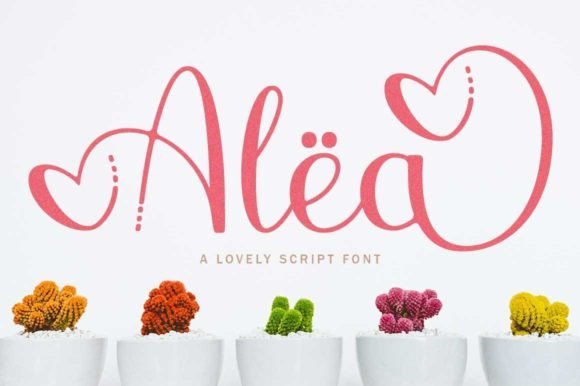
Alea Font: Where Love is Written in the Letters
As a designer, there’s nothing quite like the thrill of bringing a client’s vision to life. You’ve been tasked with creating the perfect wedding invitation – a symbol of love and commitment that will be cherished for years to come. You browse through font options, searching for the perfect combination of elegance and romance. And then, it hits you – Alea Font, with its delicate strokes and heart-shaped tails, is the perfect choice.
Alea Font is more than just a font, it’s a language of love that brings warmth and emotion to every message. Whether you’re creating heartfelt love notes or simply want to infuse your designs with a romantic flair, Alea Font is the perfect tool for the job. For designers, Alea Font offers a valuable resource for creating unique and memorable designs that will leave a lasting impression.
Alea Font Key Features
- Unique Characteristics: Alea Font features a unique blend of modern and classic elements, with intricate details and ornate flourishes that make it stand out from other fonts.
Alea Font Review
As a designer, I had the opportunity to work with the Alea Font, and here’s my honest review.
- Unique Character**: Alea Font has a unique character that makes it stand out from other fonts. Its quirky and playful nature makes it perfect for creative projects.
- High-Quality Rasterization**: The font has high-quality rasterization, which ensures that it looks great in both digital and print formats.
- Wide Character Set**: Alea Font has a wide character set, including a variety of punctuation marks and special characters.
- Difficult to Read in Small Sizes**: While Alea Font is great at larger sizes, it can be difficult to read at smaller sizes due to its unique character.
- Not Suitable for Formal Documents**: Due to its playful nature, Alea Font may not be suitable for formal documents or professional projects.
Alea Font is a great choice for creative projects, such as children’s books, advertising materials, or social media graphics. However, it may not be the best choice for formal documents or projects where a more professional font is required. Overall, I would give Alea Font 4 out of 5 stars.
Getting the Most Out of Alea Font
For the best results, use Alea Font in conjunction with other design elements that complement its elegant and modern style. Experiment with different font sizes, colors, and styles to achieve the desired look.
Alea Font is perfect for creating elegant and sophisticated designs for:
– Wedding invitations
– Branding materials
– Editorial content
– Luxury product packaging
Alternatives to Alea Font